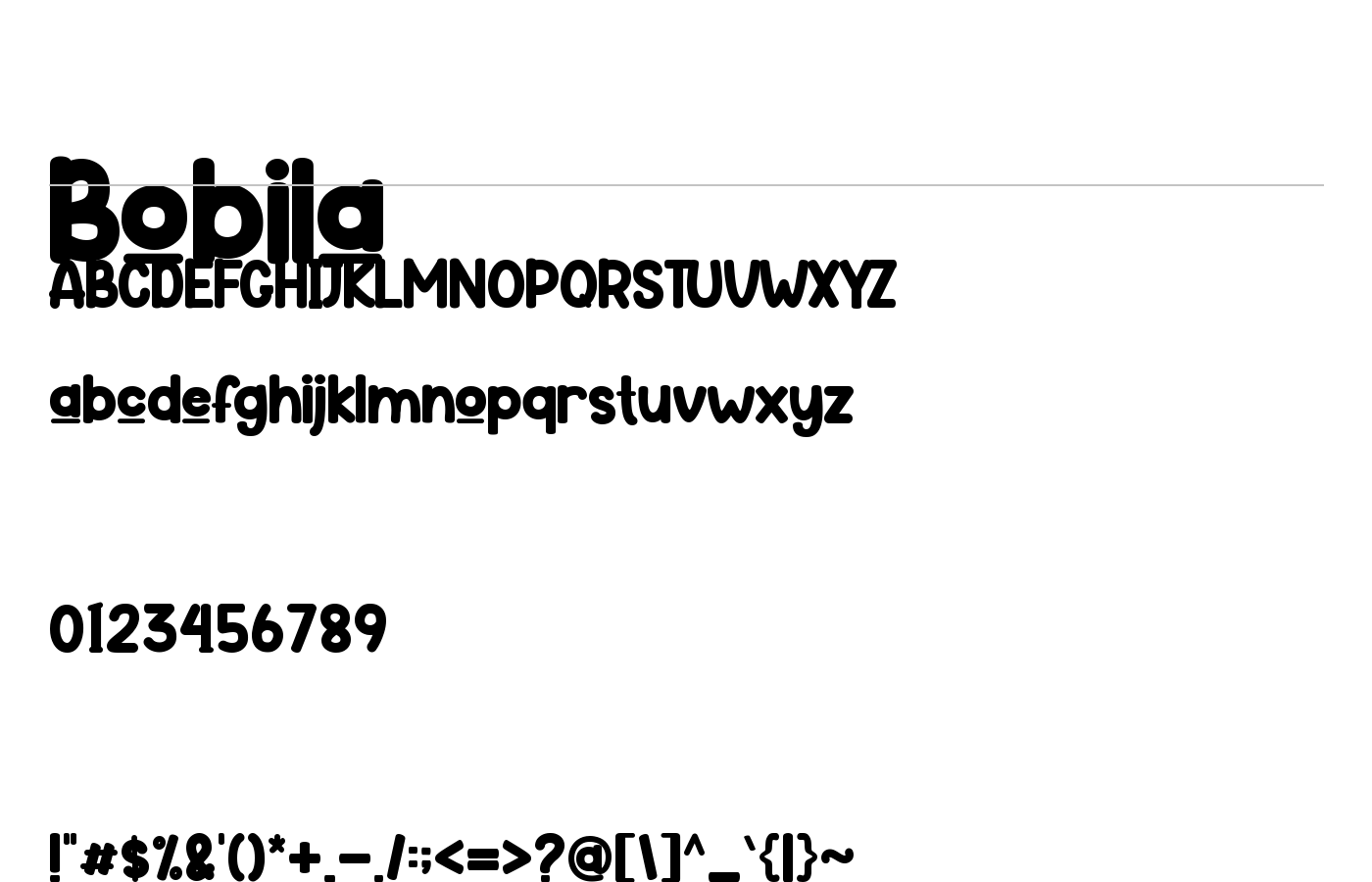
Bobila is a playful and bold sans serif font with rounded edges and a friendly, approachable vibe. Its heavy weight and slightly condensed letterforms make it ideal for eye-catching headlines, branding, and packaging that want to convey fun and warmth. This font works well for creative projects and casual designs that seek to engage audiences with a modern yet informal feel.
Bobila Font
About Bobila Font
| Font family | Bobila Font |
| Designer | Rashatype |